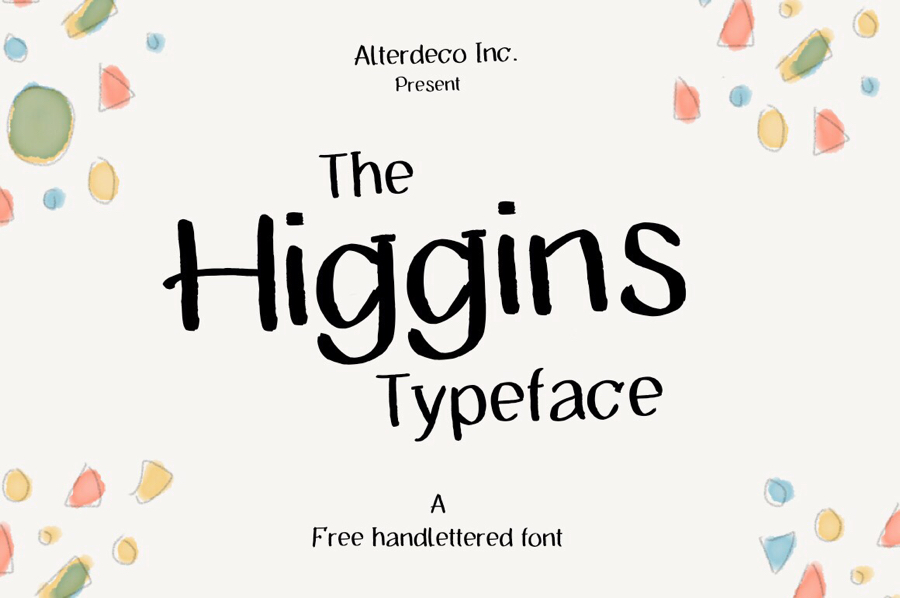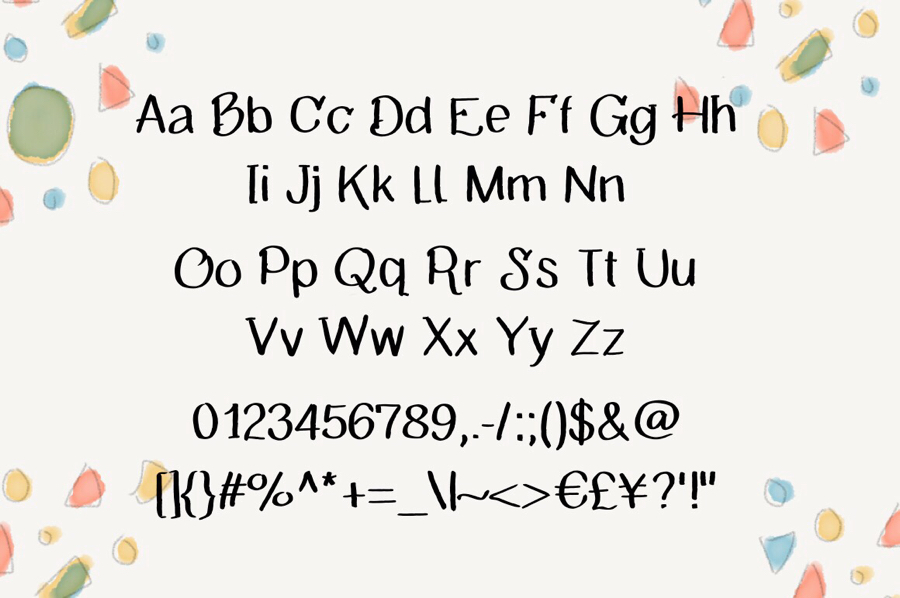
The Higgins Typeface is a free handwritten font crafted with love. This free font is so perfectly imperfect font to put a personal feel into anything you’re working on.